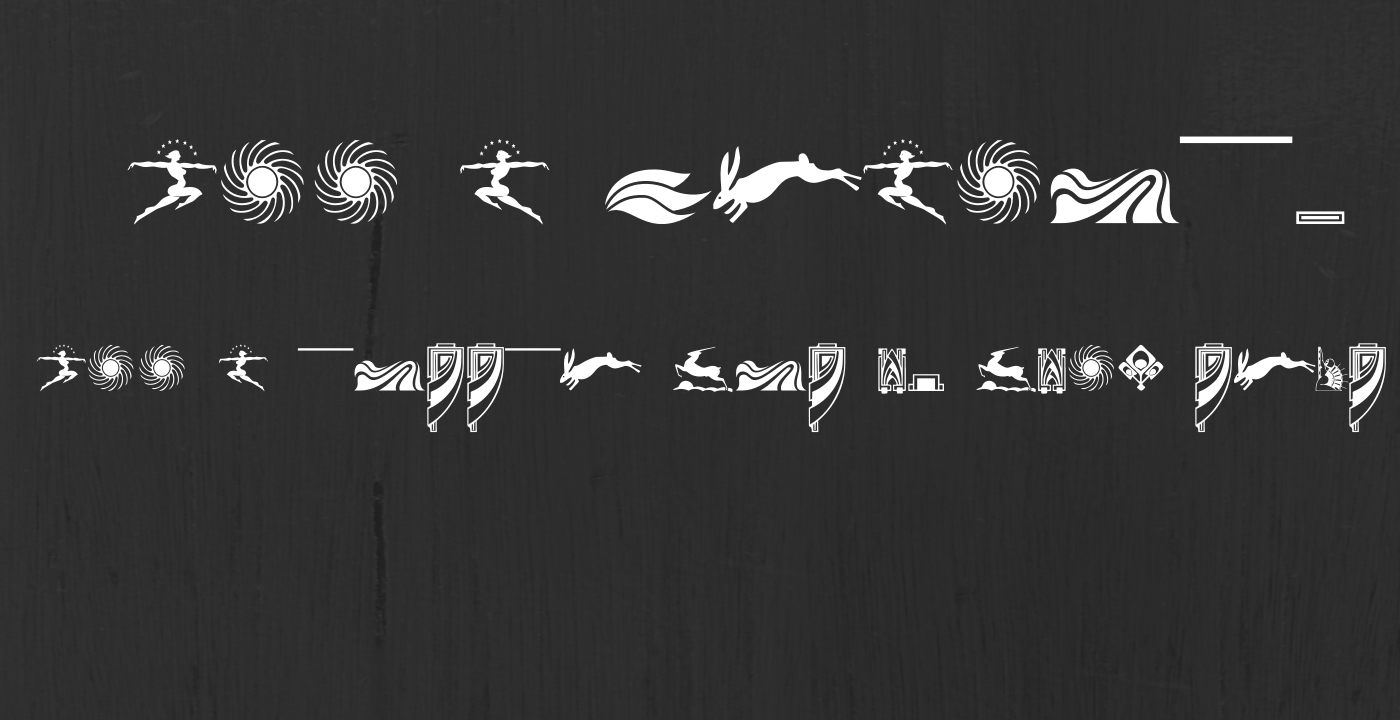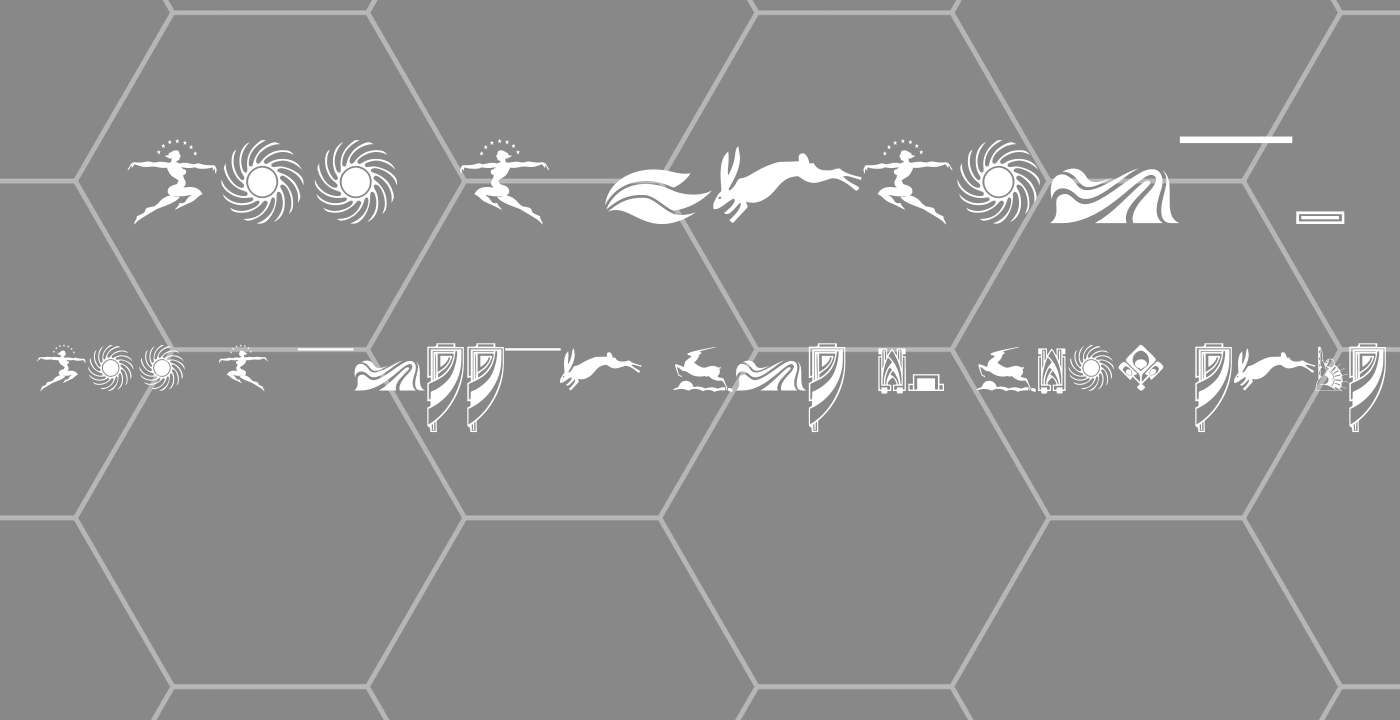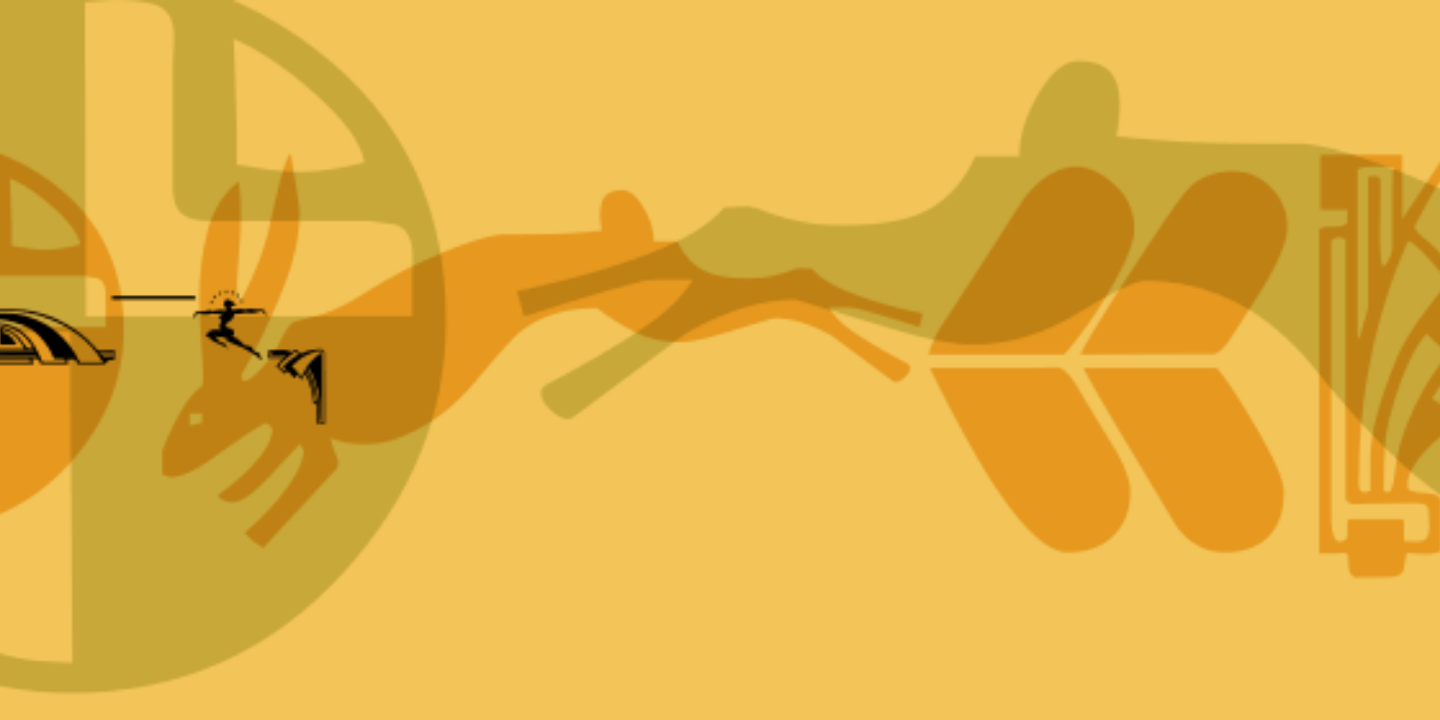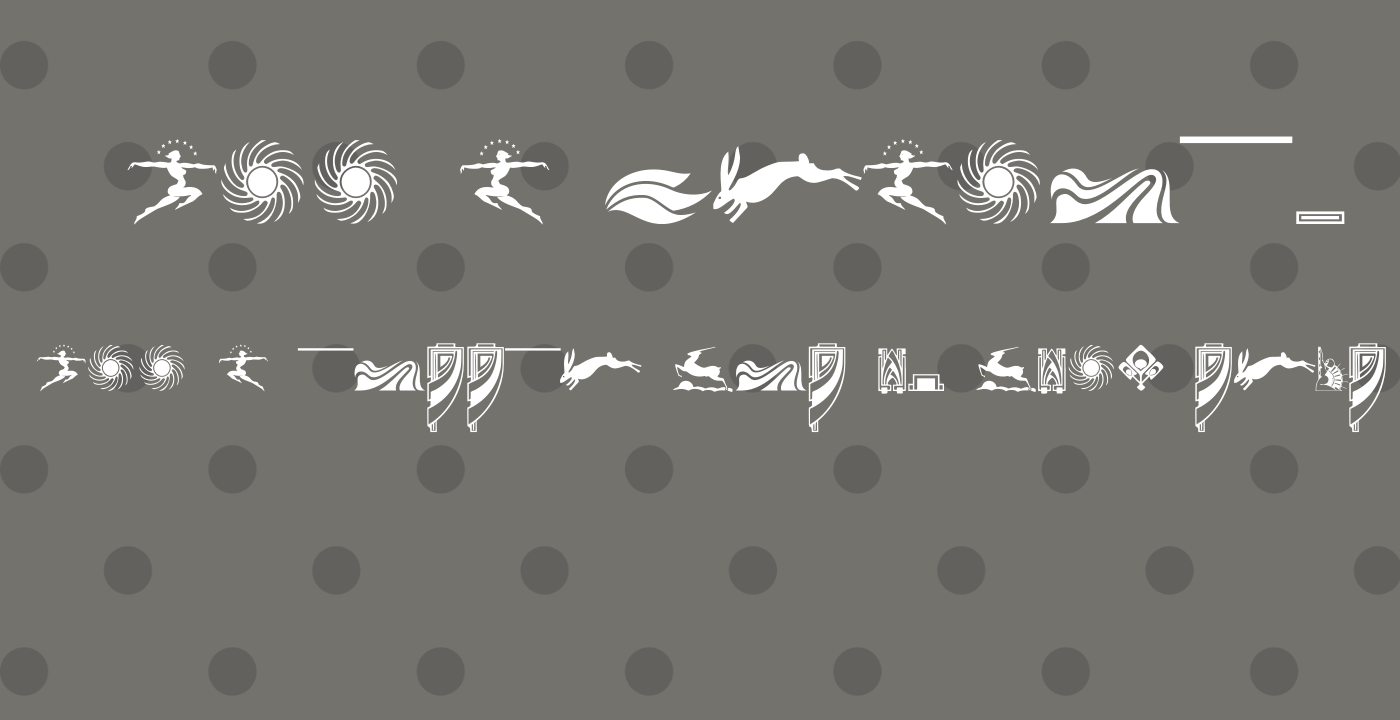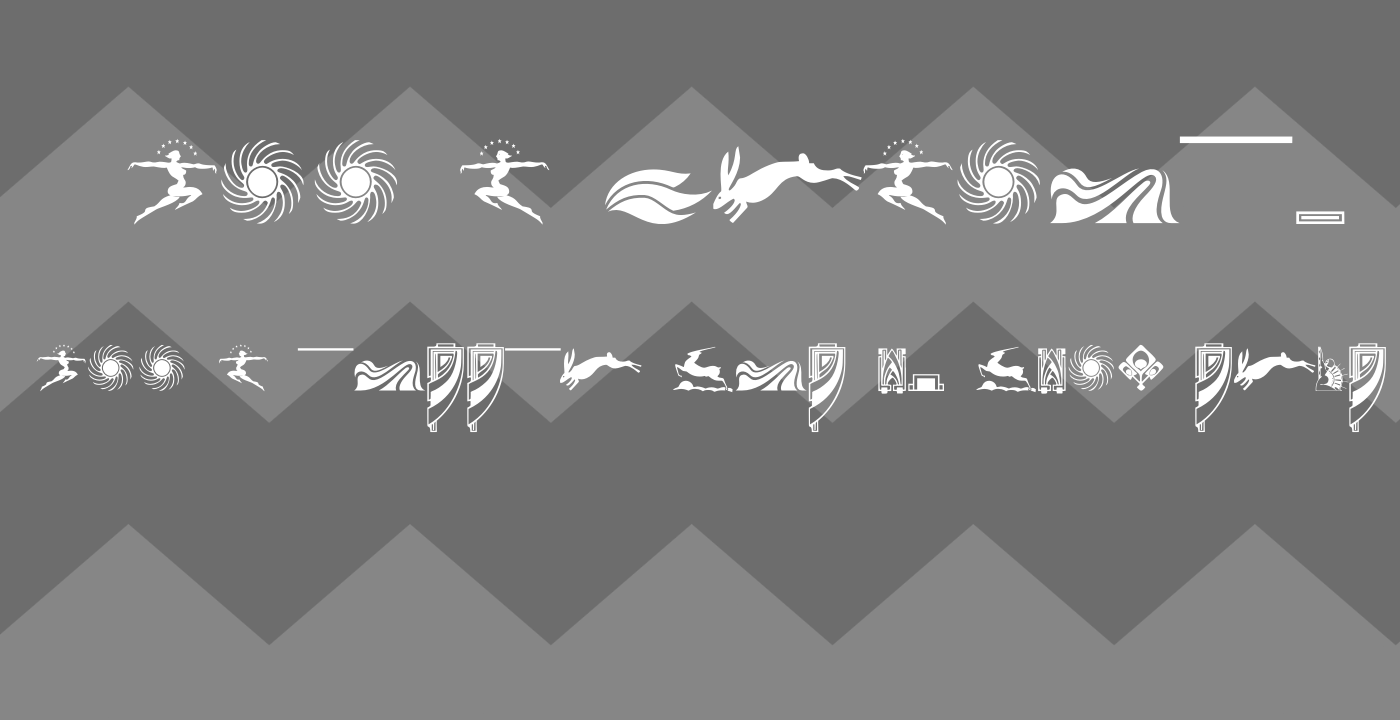
Add an authentic touch of Art Deco to your design using one or more of the 53 Borders, symbols, and ornaments that symbolize the look and feel of the influential visual arts design that first appeared in France before WW I and flourished internationally in the 1920s, 30s, and 40s.